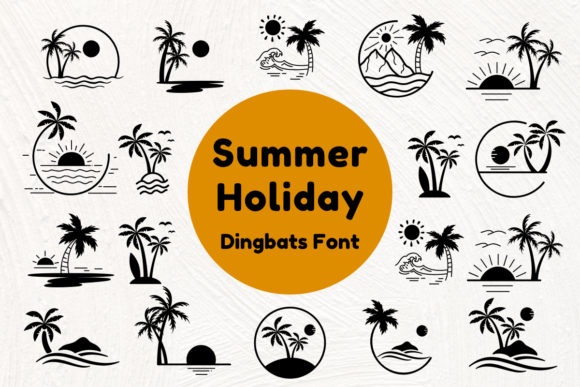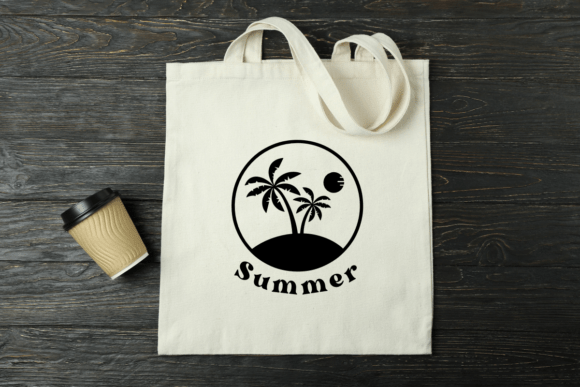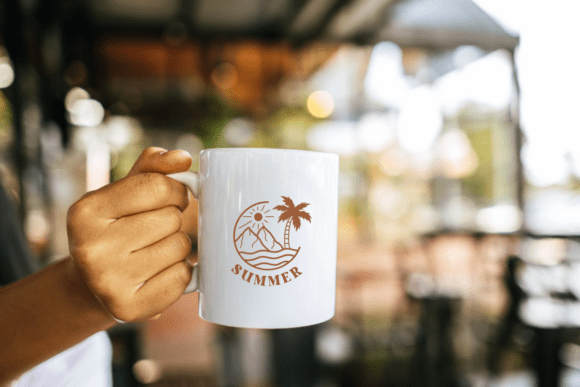
Summer Holiday Font
About the Summer Holiday Font
Get ready to be inspired by Summer Holiday Font, a fresh and dynamic typeface for modern creators. Bring the vacation vibes to your design with
Summer Holiday
! This delightful dingbats font includes playful silhouettes of palm trees, sunsets, and tropical beaches—perfect for summer-themed crafts, travel branding, and sunny social media posts.
Summer Holiday Font Usage Examples
Summer Holiday Font Example